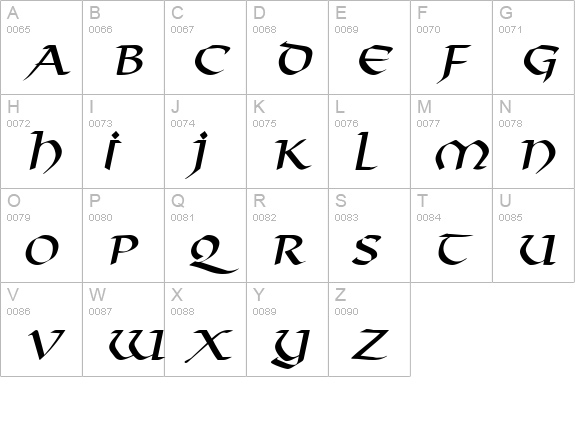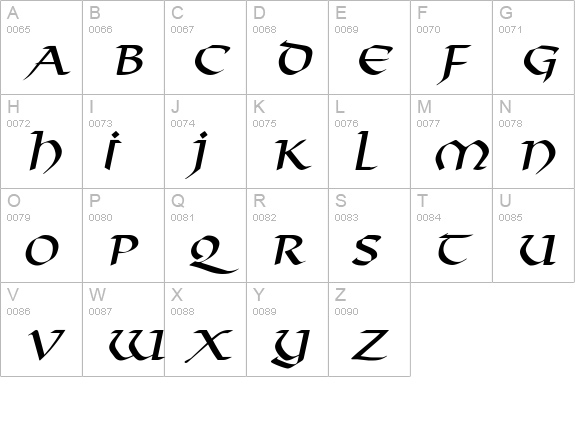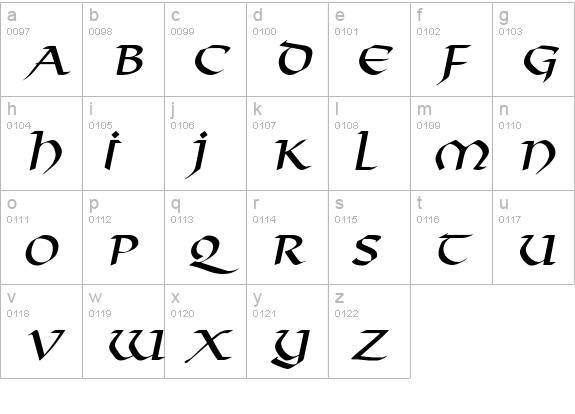
Valhalla Italic is a distinctive, italic variant in the Valhalla typeface family \xE2\x80\x94 well suited to design and typography projects.
Valhalla Italic font is a mesmerizing and elegant typeface that exudes a sense of sophistication and modernity. Its flowing curves and delicate slant create a graceful and refined appearance, making it perfect for adding a touch of class to any design project. With its sleek and stylish letterforms, Valhalla Italic font is versatile and adaptable, making it suitable for a wide range of applications. Whether used for branding, packaging, advertising, or editorial design, this font will effortlessly elevate your creations to new levels of professionalism and visual appeal. The unique blend of contemporary design and timeless elegance sets Valhalla Italic font apart from other fonts, making it a standout choice for designers who value both innovation and tradition. Its subtle italic style adds a touch of flair and sophistication, while maintaining readability and legibility. One of the most remarkable aspects of Valhalla Italic font is that it is free for personal and commercial use. You can easily download it at FontsMarket.com, a trusted and reliable source for high-quality fonts. By offering this font for free, the creators of Valhalla Italic font have made it accessible to a wide audience, allowing designers and enthusiasts to enhance their projects without breaking the bank. In conclusion, Valhalla Italic font is a stunning and versatile typeface that combines elegance with modernity. Its sleek curves and italic style bring sophistication and flair to any design, while maintaining readability and legibility. And the best part? It is freely available to download at FontsMarket.com, making it a must-have for any designer looking to add a touch of class to their creations.